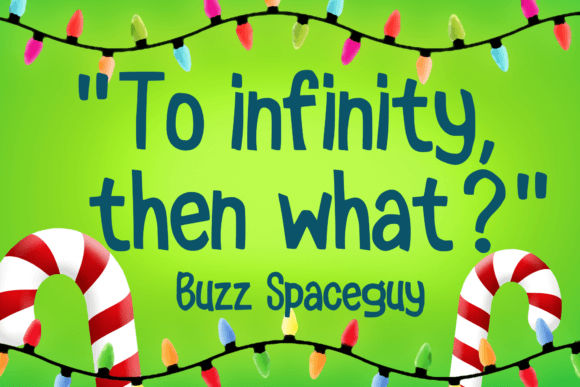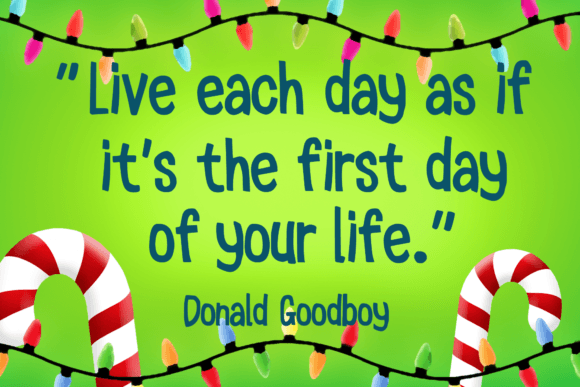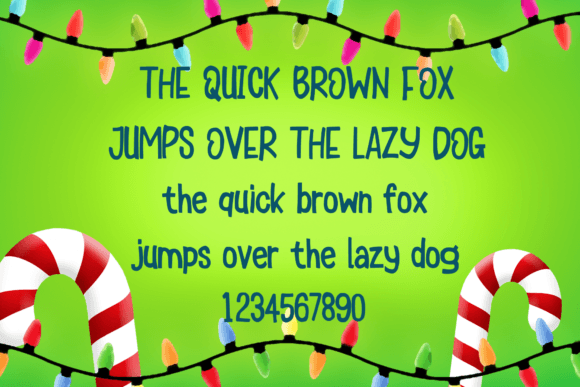
Introduction to Grinchie 2.0 Font
Grinchie 2.
0 is your perfect Christmas font and now comes with new version which include English, French, German, Italian, and Spanish You can use it for anything ranging from t-shirts, kids’ book designs, and greeting cards to stickers and posters, or anything that needs a casual touch.
Key Features of Grinchie 2.0 Font
Why Choose Grinchie 2.0 Font?
Grinchie 2.0 Font offers exceptional quality and versatility, making it a valuable addition to your design toolkit. Whether you’re creating for personal projects or commercial use, Grinchie 2.0 Font delivers professional results.